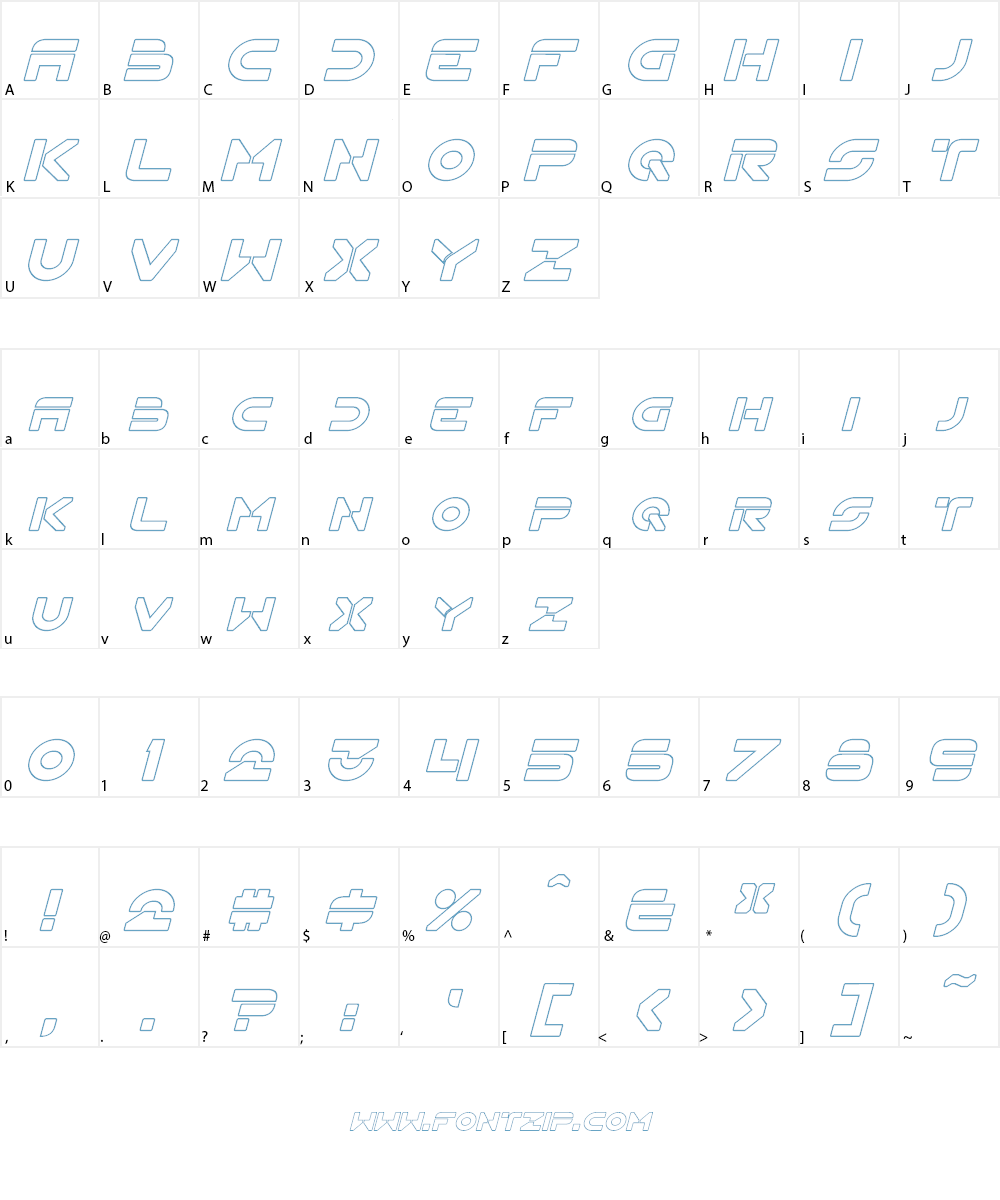
Flynn is a sci-fi typeface is based on the title logos of “Tron” and “Tron: Legacy” from Walt Disney pictures. Includes basic alphabet and symbols. Includes hollow and italic versions.